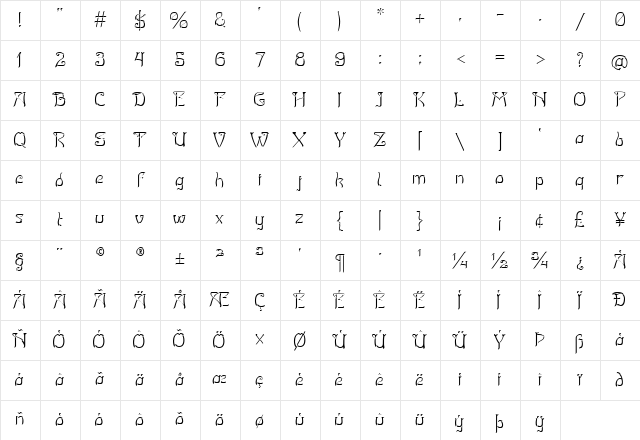
Complete Sunlit Horta Twin Regular glyph index. Displaying only characters natively supported by Sunlit Horta Twin Regular font.
Sunlit Horta Twin is a composed and adaptable typeface that performs quietly and consistently across a wide range of design contexts.